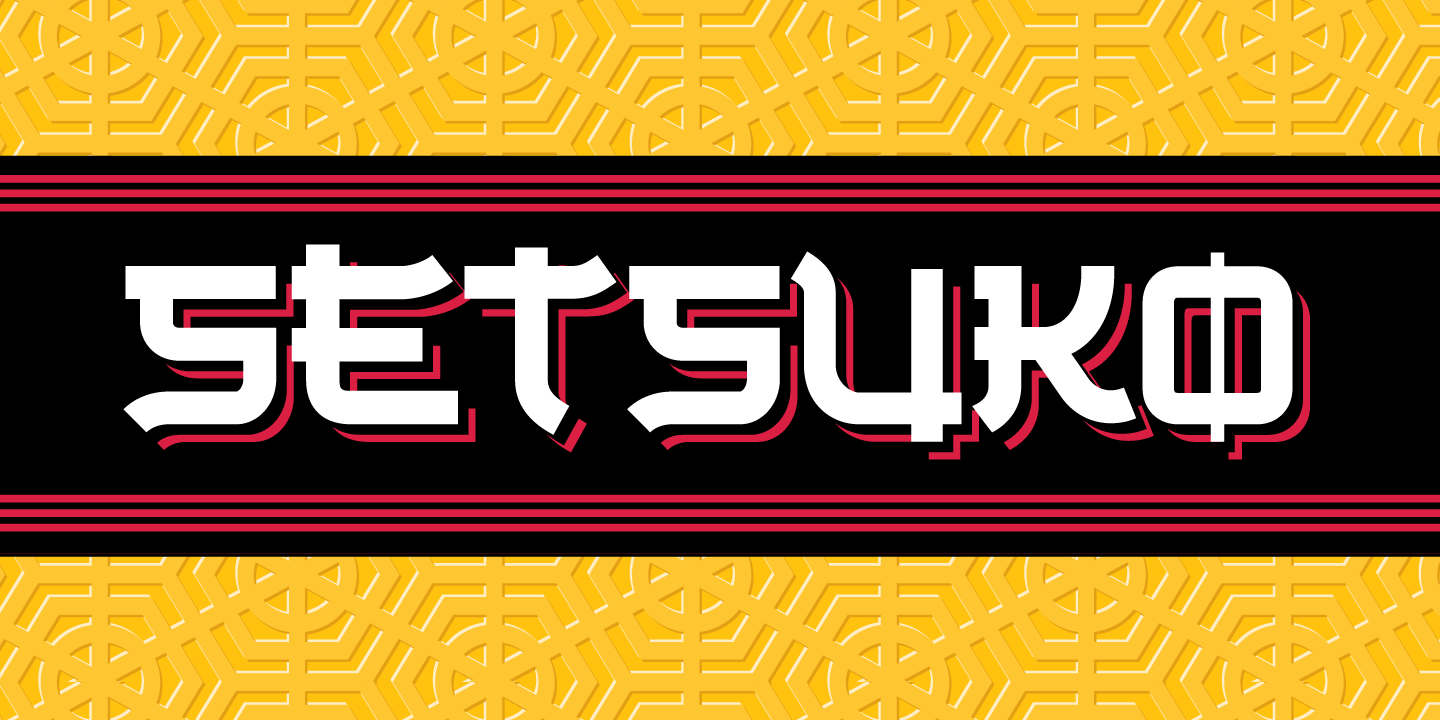
Setsuko
Setsuko finds its origins on the ancient Silk Road, a network of trade routes crossing the continent of Asia, named for the Chinese silk trade which began in the Han Dynasty more than two thousand years ago.
Originally designed to brand and package products celebrating the charm and mystery of the Ancient East, the characters in Setsuko are intended to express admiration and respect, not the stereotyping and parody sometimes evident in fonts with a particular ?foreign? flavor. Rather than trying to twist pictograms into Latin letterforms or effecting a recognizable but trite idiom, I chose a more ambiguous stylization, hoping to leave room for a designer's creativity and interpretation.